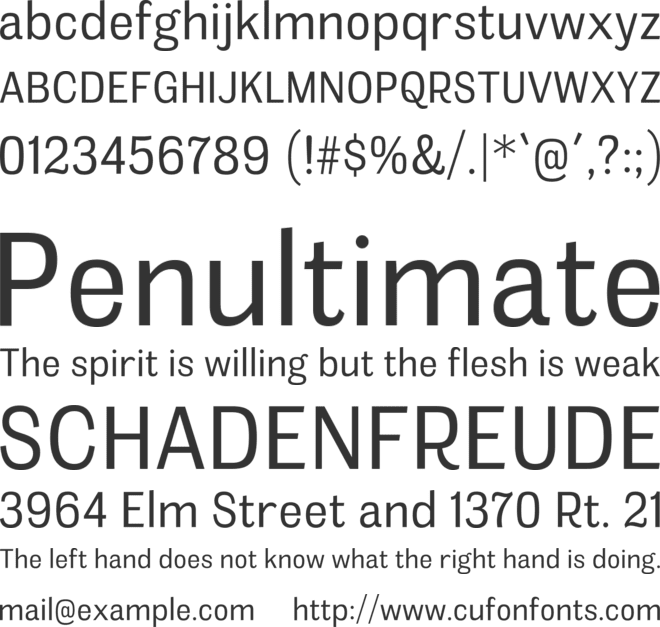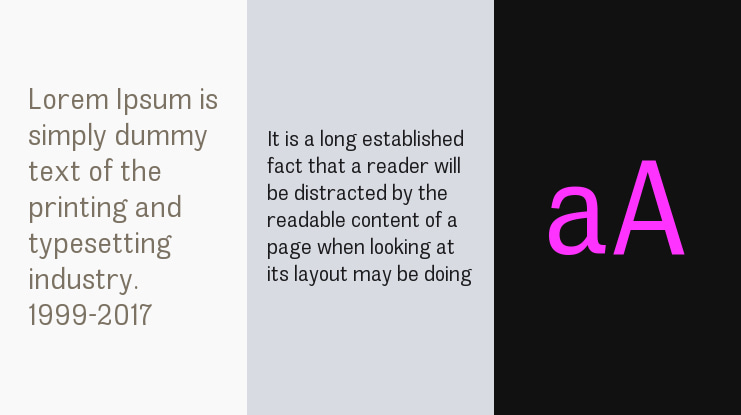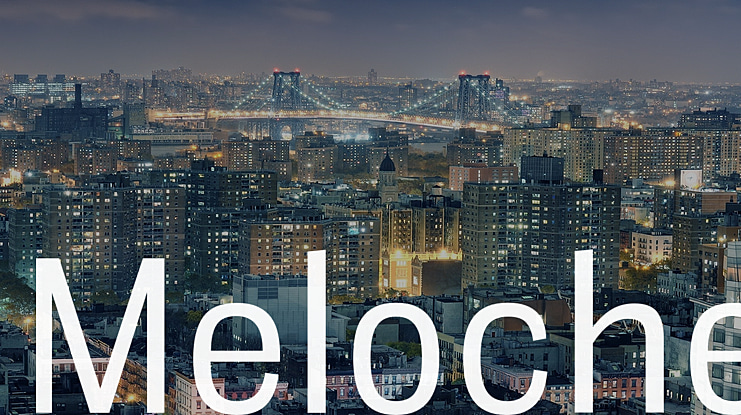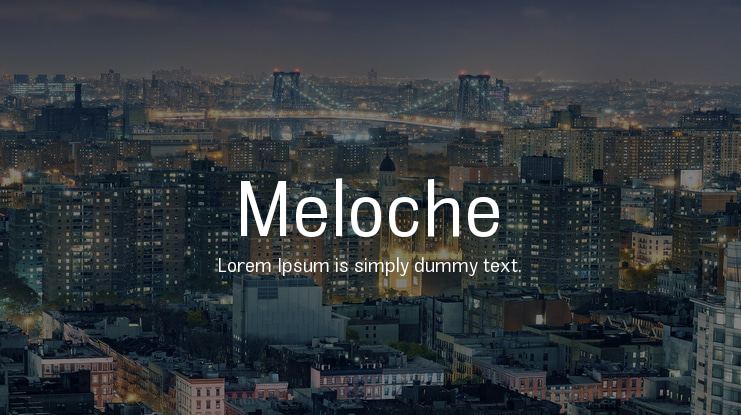
Meloche Font
Meloche is a unique grotesque sans-serif typeface influenced by hand-painted French signs of the late nineteenth century. Itâs available in 7 weights and obliques. OpenType features include numeric ordinals, fractions, old-style numerals and a simple Q. In OpenType savvy applications you can access 20 weight-matched fleur-de-lis symbols by entering the shortcodes [fleur1] [fleur2] [fleur3] etc. Meloche supports Greek, Vietnamese, Cyrillic, Pan-Nigerian and almost all Latin based languages.